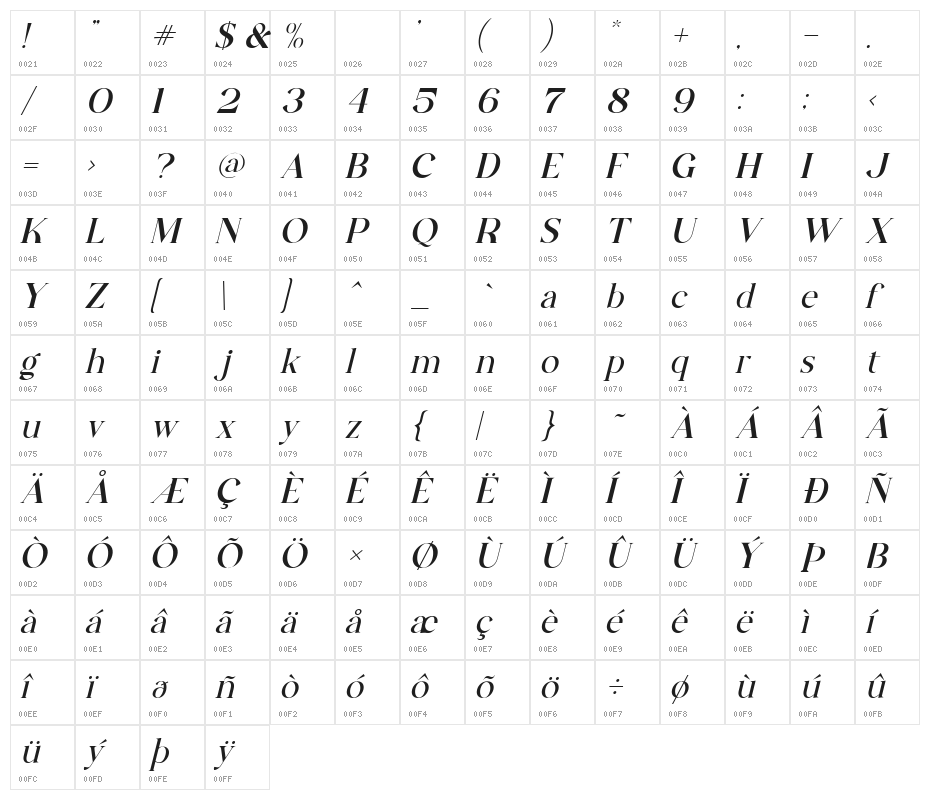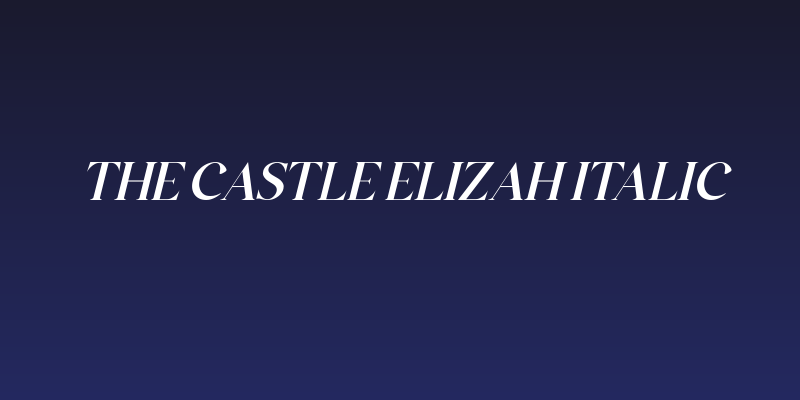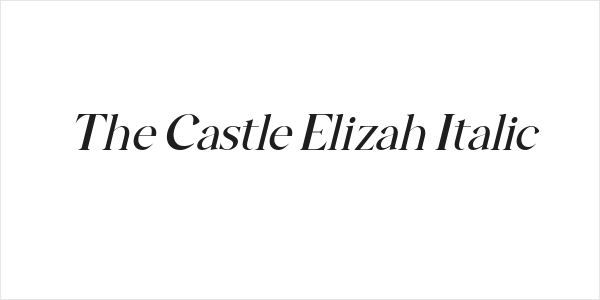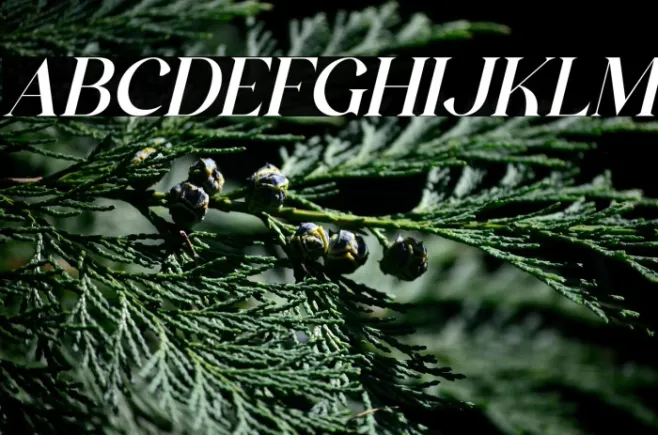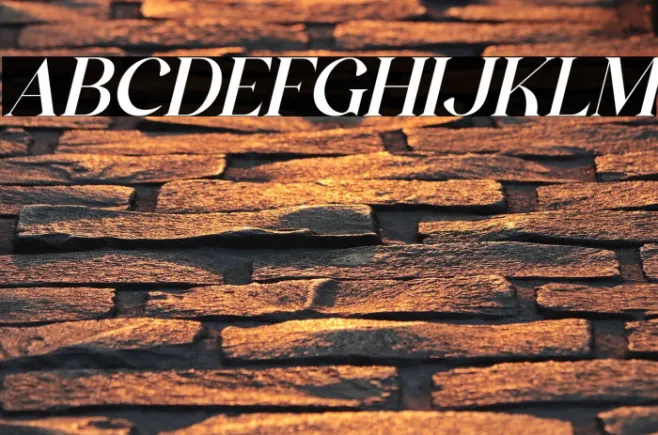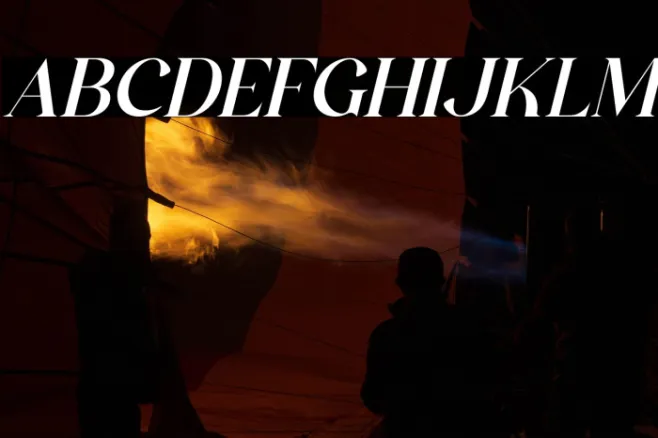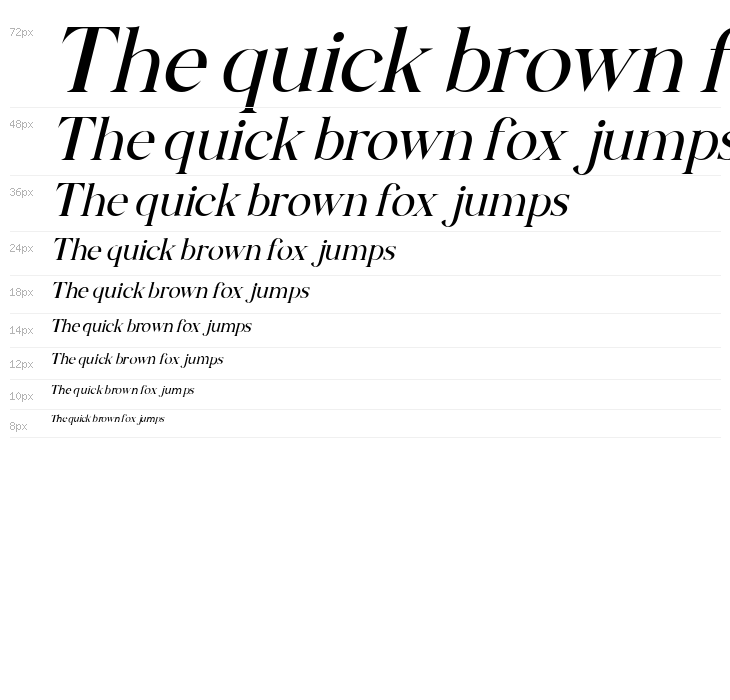
The Castle Elizah Italic Font
The Castle Elizah Italic Description
This elegant typeface features a sophisticated italic style with high contrast between thick and thin strokes, giving it a refined and classic appearance. The characters are slightly condensed, enhancing the graceful flow of the text. The uppercase letters exhibit a traditional serif design, while the lowercase letters maintain a consistent style, contributing to a cohesive look. The numerals are designed with a similar elegance, ensuring uniformity across different text elements. Special characters are crafted with attention to detail, making them suitable for formal and decorative purposes.